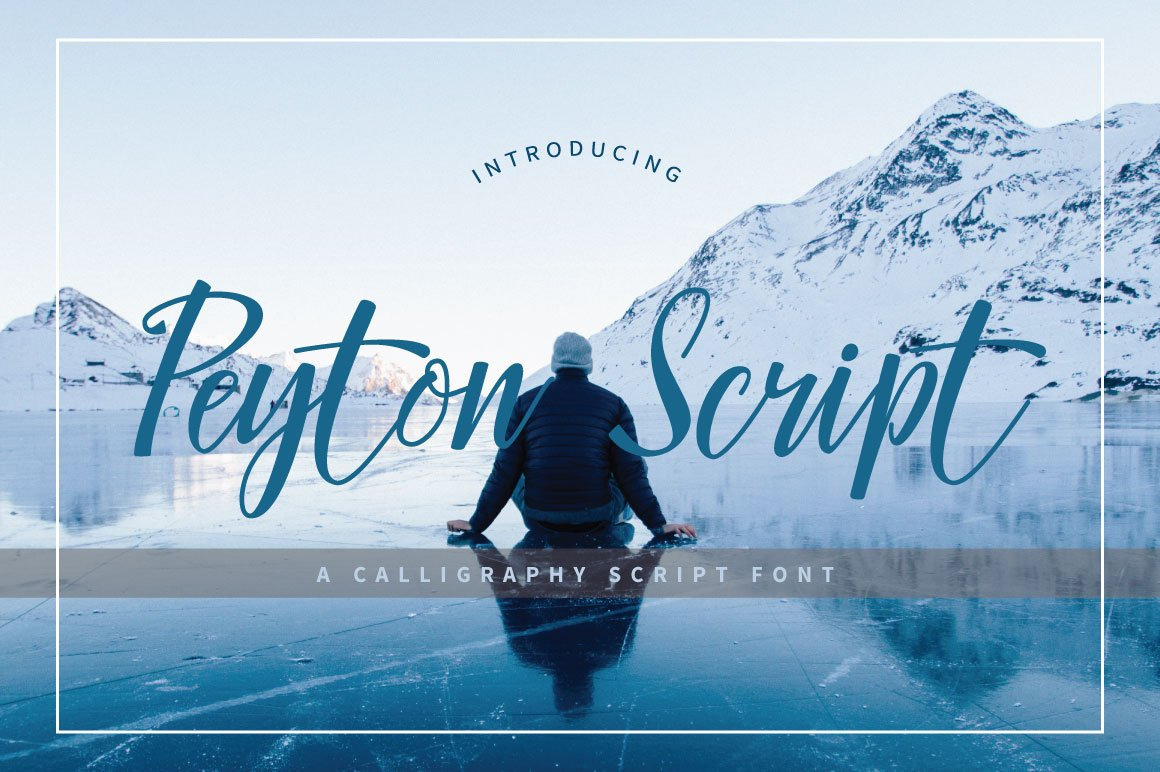
Peyton Script Typeface
Peyton Script is a calligraphy script font which beauty, elegant and delighted feeling. Create with love and add your design with romantic feeling too. Peyton Script is just what you've been looking for!
Use Peyton Script on all of your projects to give loveliness and sophisticated taste. In particular would look great on, branding projects, logos, product packaging, posters, invitations, greeting cards, titles, blogs, everything that includes personal charm and you name it. ;)
Peyton Script calligraphy script comes with upper and lowercase characters, punctuation glyphs, numerals, ligatures and a TTF of web font. It also support multilingual. Feel free to use it for commercial/ extended license purposes.